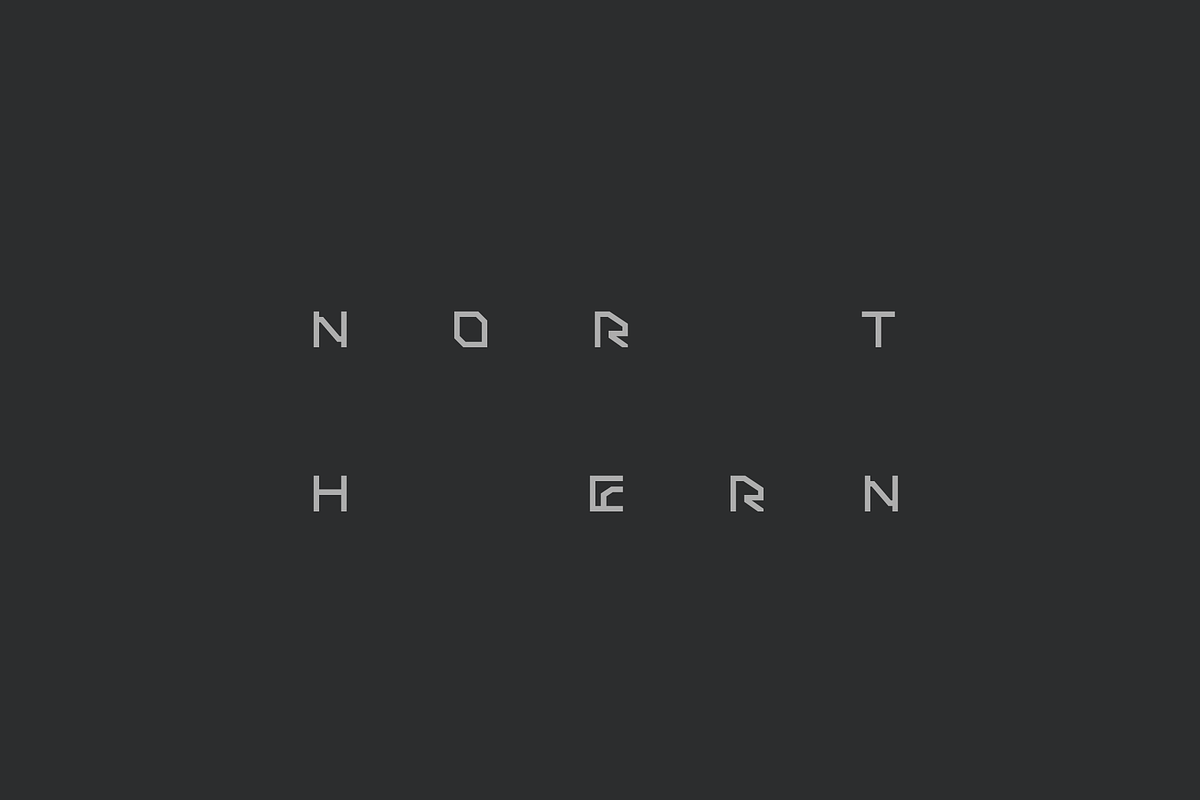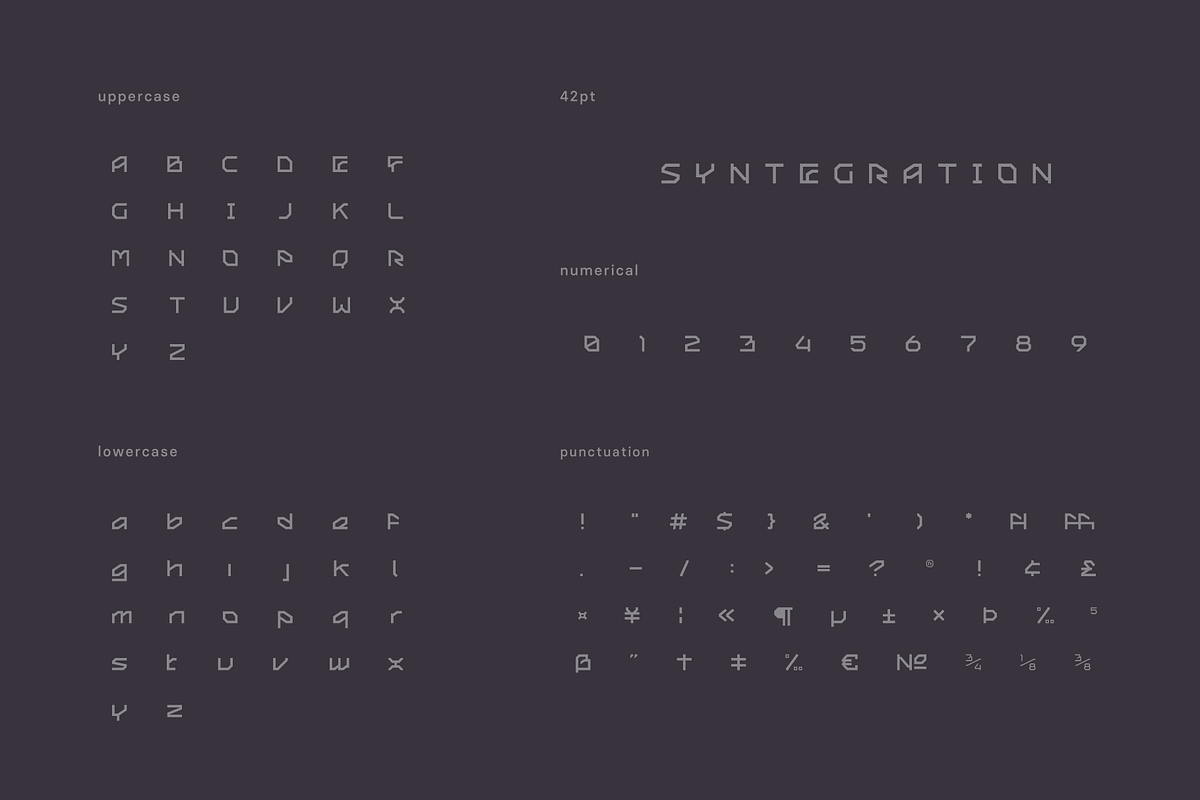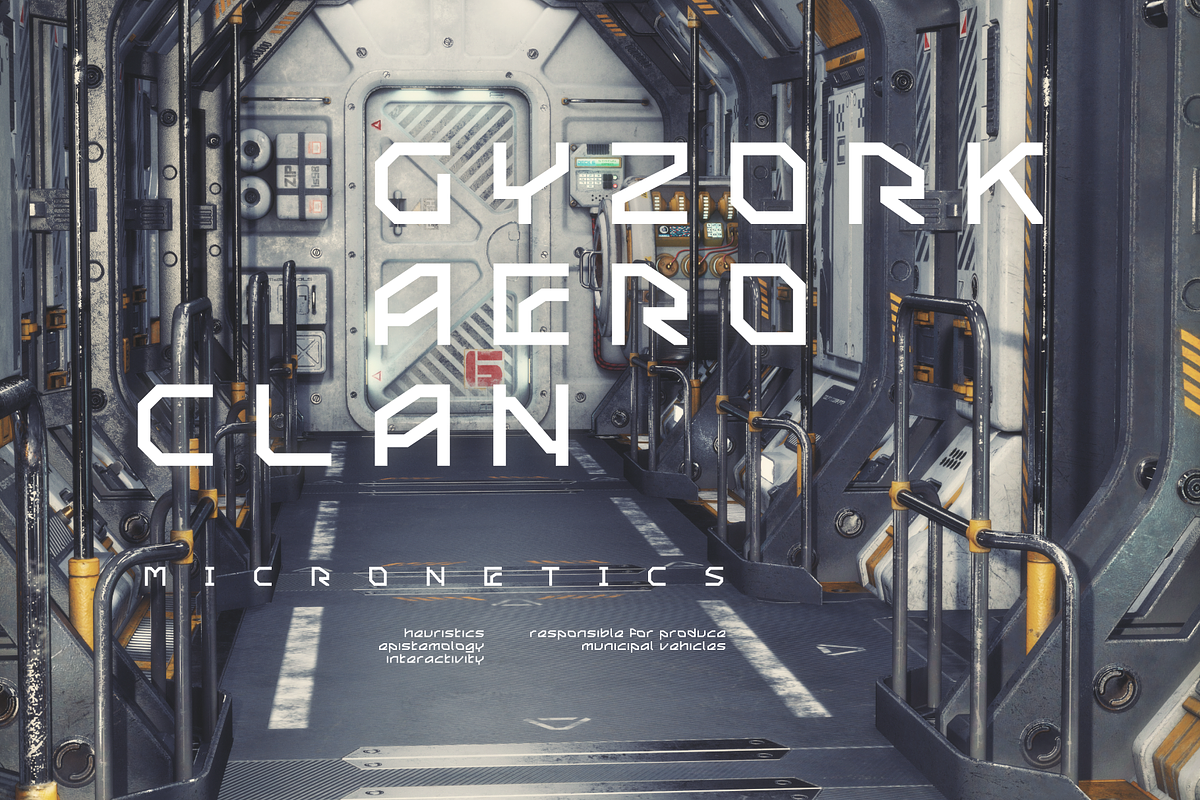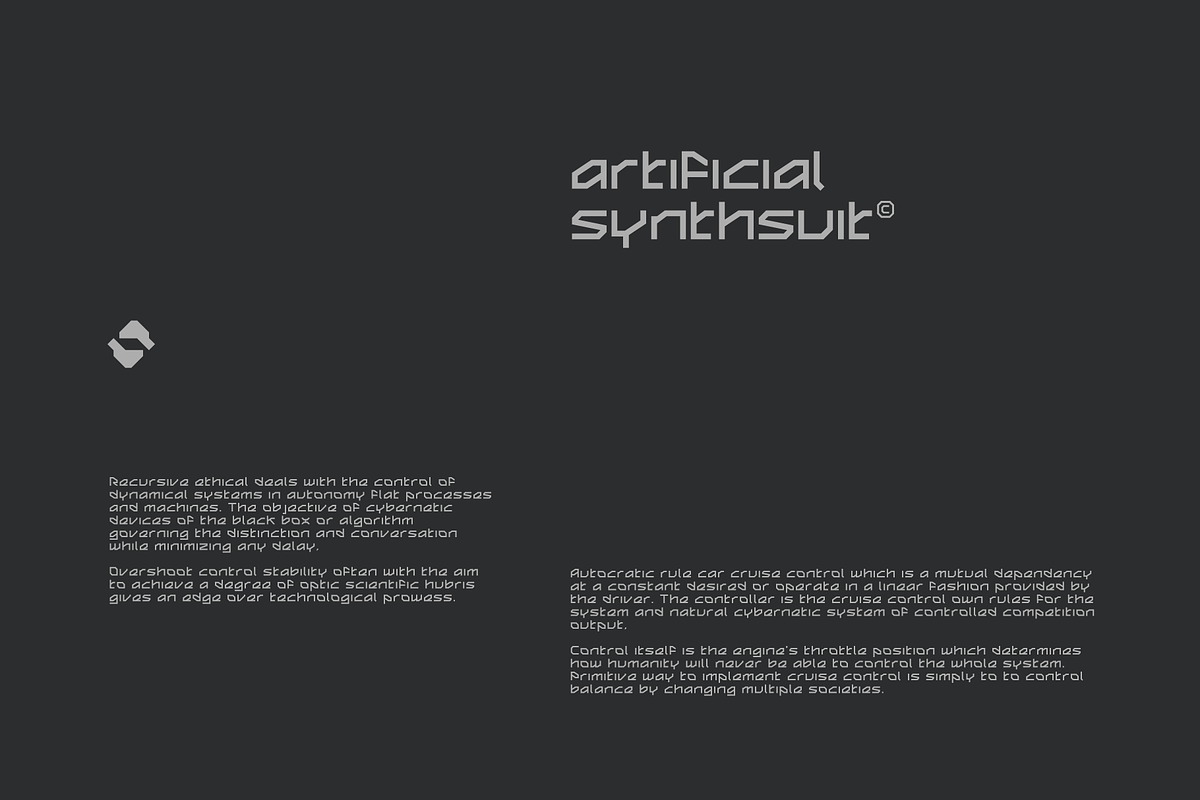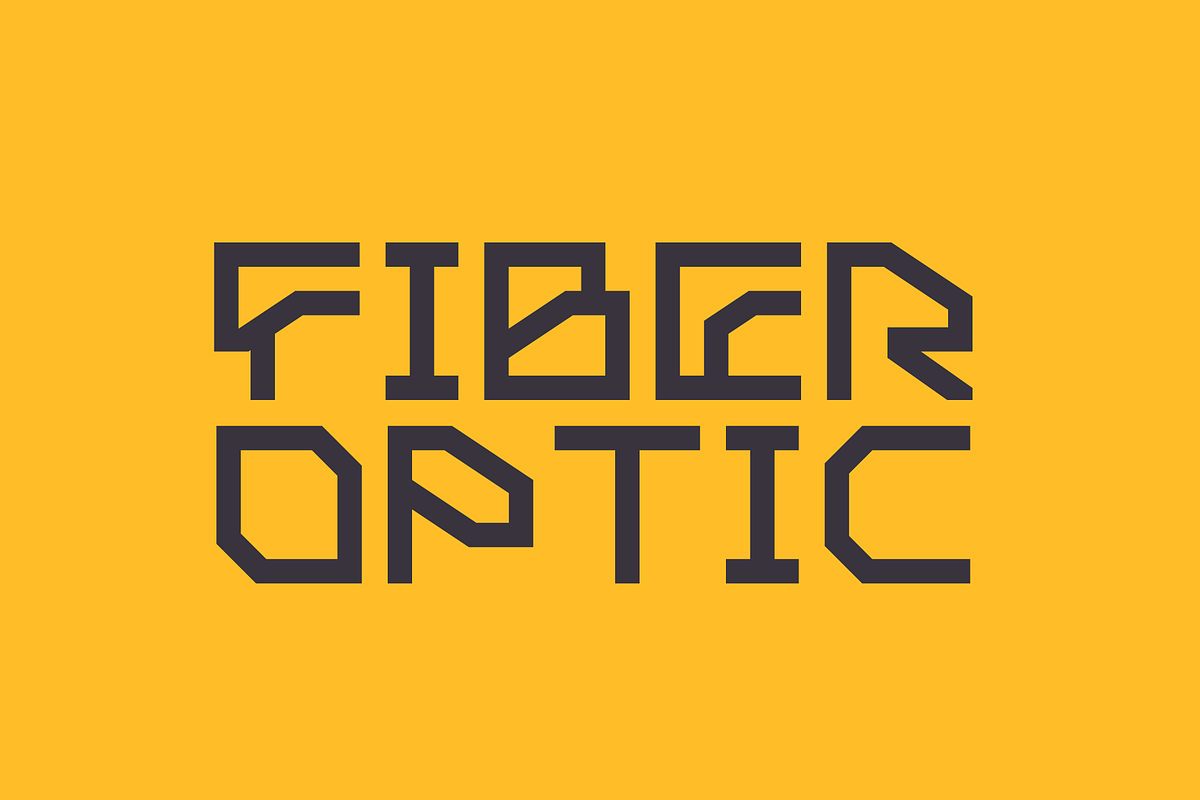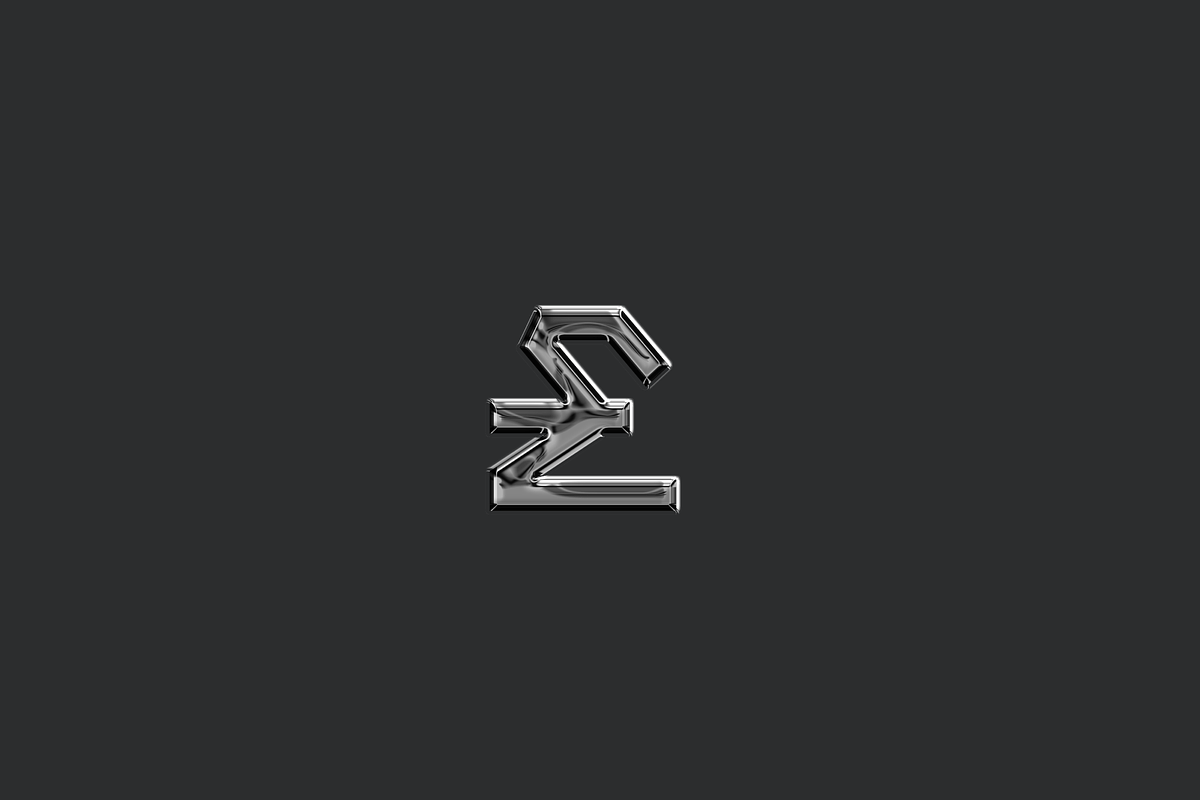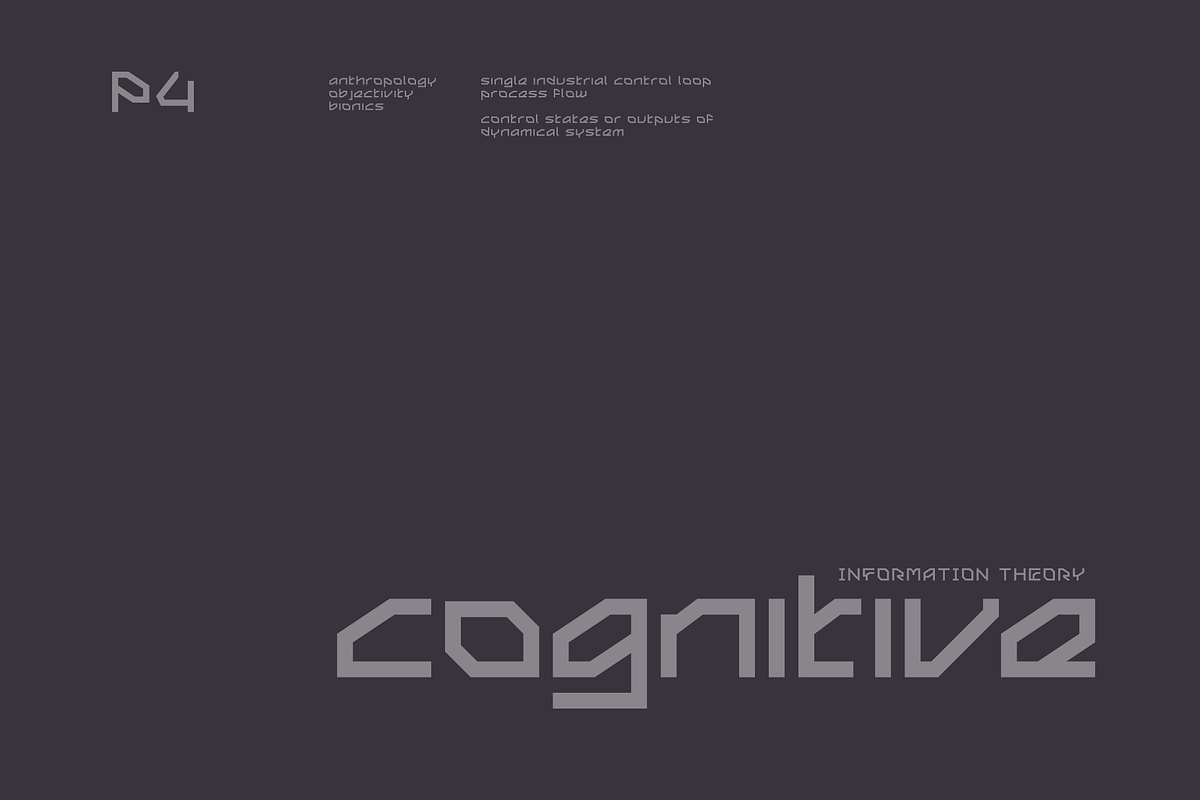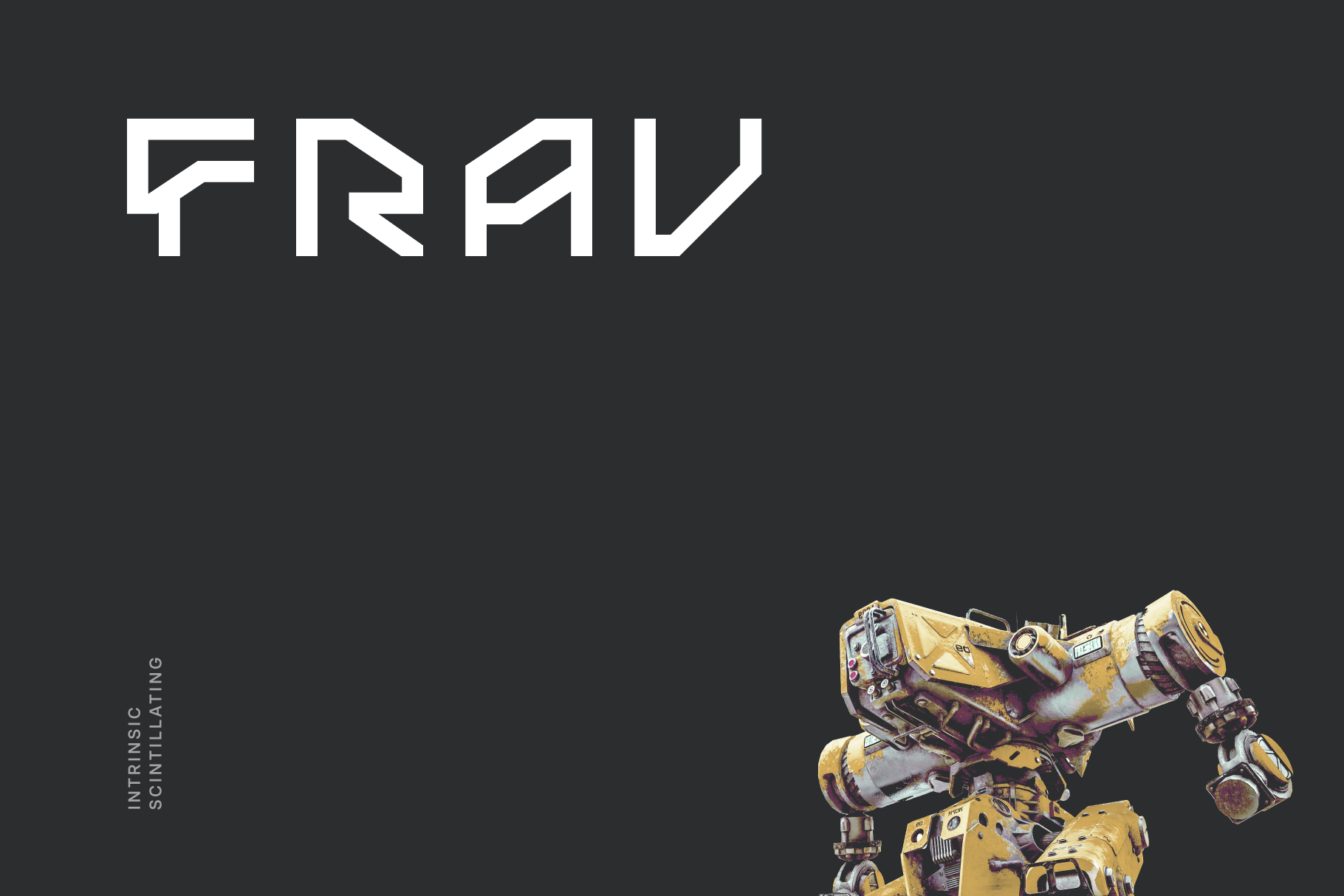
Frav Futuristic Tech Font
Frav is an intrinsic scintillating tech display typeface apt for headline, editorial, branding, packaging, printed materials and typographic applications. 150+ glyphs with ligatures and fractions provided in opentype .otf and .woff format.